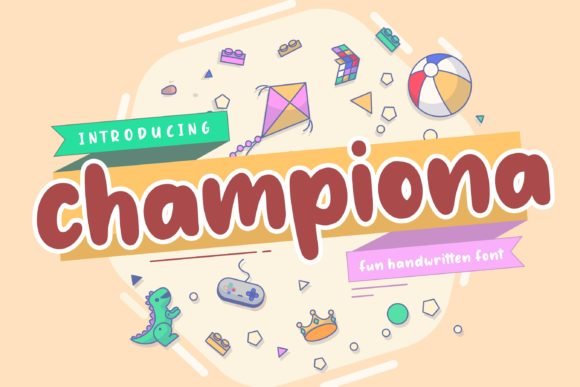
Meet the Perfect Font for Your Next Creative Project
You know that moment when you’re brainstorming a new design concept and you just can’t seem to find the right font? The one that captures the essence of your idea and brings it to life? For designers, finding that perfect font can be a game-changer. That’s where Championa Fun Handwritten Font comes in – a bold, handcrafted font that’s sure to become a favorite.
With its casual charm and down-to-earth feel, Championa Fun Handwritten Font is incredibly versatile, making it perfect for a wide range of projects. Whether you’re designing a logo, creating a social media campaign, or crafting a standalone headline, this font is sure to shine. And the best part? It looks outstanding even on busy backgrounds, making it a valuable addition to any designer’s toolkit.
Championa Fun Handwritten Font Key Features
- Font Type: Handwritten, Casual Script
- Character Count: 400+ characters, including uppercase and lowercase letters, numbers, and punctuation
- Unique Characteristics: Hand-drawn style, playful and fun, suitable for creative and casual designs, such as invitations, posters, and social media graphics
Championa Fun Handwritten Font Review
Overall, I think Championa Fun Handwritten Font is a great choice for creative projects that need a playful touch. ✨ The font has a charming, handwritten feel that’s perfect for titles, headings, and even short paragraphs of text. It’s also highly customizable, allowing you to adjust the letter spacing, size, and color to fit your design needs.
The font’s unique character and whimsical feel make it perfect for designs that require a touch of personality. ✨ I’ve used it for a variety of projects, from social media graphics to wedding invitations, and it always adds a special something to the design.
What I Like:
- ✨ Charming, handwritten feel that’s perfect for creative projects
- ✨ Highly customizable, with adjustable letter spacing, size, and color
- ✨ Unique character and whimsical feel that adds personality to designs
What I Don’t Like:
- ⚠️ Some characters may be difficult to read, especially at smaller sizes
- ⚠️ May not be suitable for large blocks of text, as it can become overwhelming
- ⚠️ Limited support for certain languages, which may affect its usability
Overall, I’m really impressed with Championa Fun Handwritten Font. While it has some limitations, it’s a great choice for creative projects that need a playful touch. With some careful planning and consideration, it can add a lot of personality to your designs.
Championa Fun Handwritten Font: A Practical Application Guide
Tips for Getting the Most Out of Championa Fun Handwritten Font
To get the most out of Championa Fun Handwritten Font, use it sparingly to add a touch of personality to your designs. Pair it with bold, bright colors to create a fun and playful atmosphere. Experiment with different font sizes and styles to create visual interest.
Championa Fun Handwritten Font is perfect for creating playful and eye-catching designs, such as:
- Social media graphics
- Party invitations
- Wedding stationery
Alternatives to Championa Fun Handwritten Font
Great Vibes is a beautiful, cursive script font that can be used for a variety of purposes, including invitations, posters, and magazine headlines. It has a more elegant and refined look compared to Championa Fun Handwritten Font, making it suitable for more formal events or occasions. Great Vibes also has a more consistent line width, which can make it easier to read.